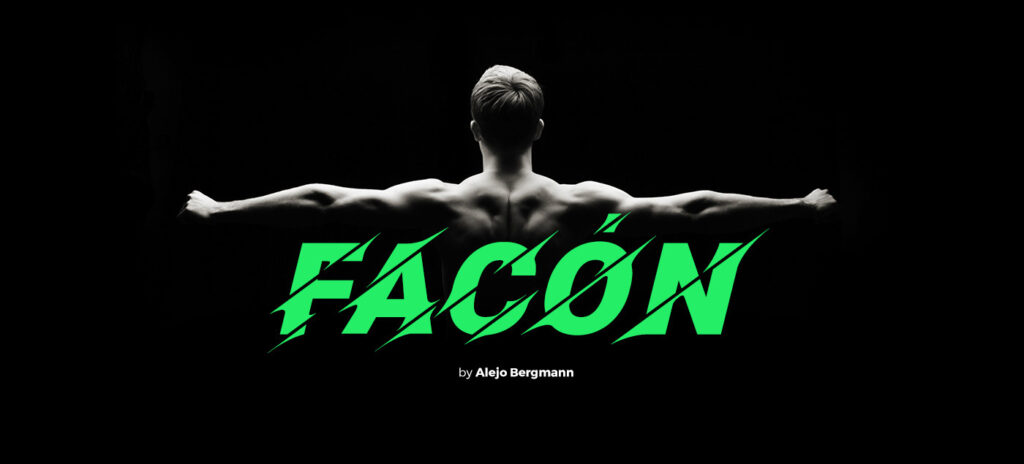
Facón Font is a sport display font with diagonal cuts designed by Alejo Bergmann. It contains all caps letters, numerals and symbols. This font perfectly suites for variety display purposes, including logotypes, badges and labels, headlines and banners, posters, prints and much more. The Nike logo is only used as example. Feel free to use this in any of your projects.
Facón Free Font